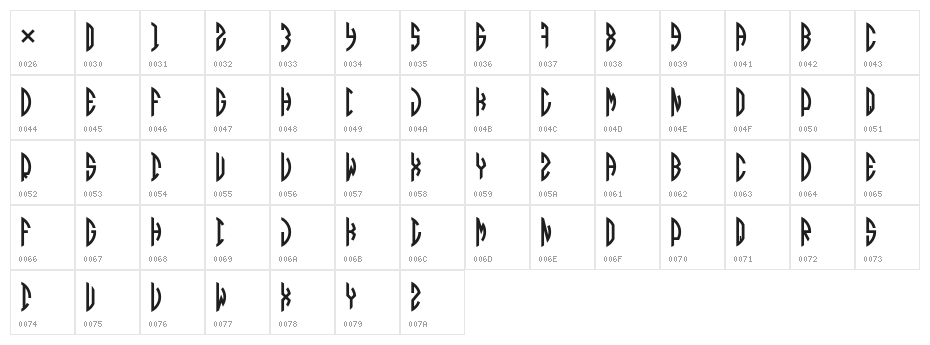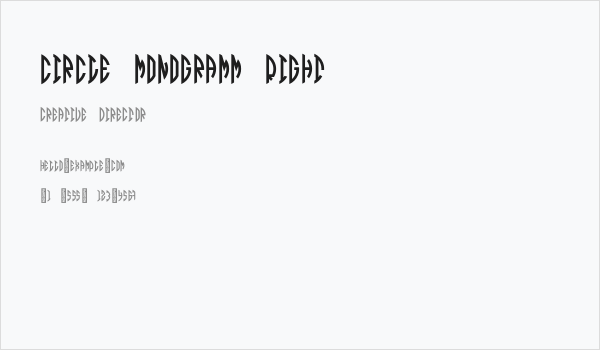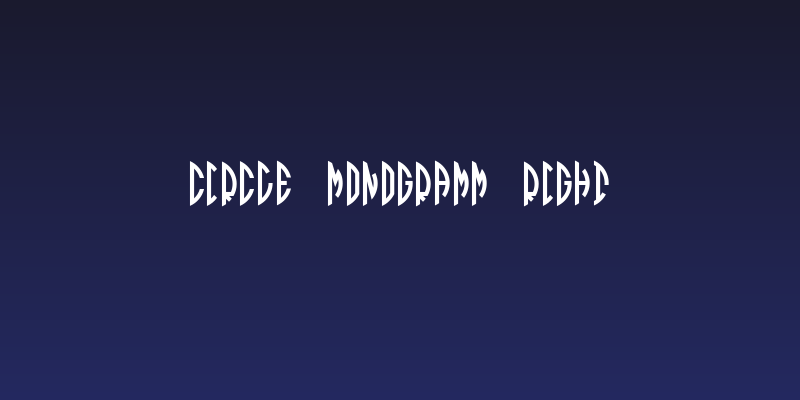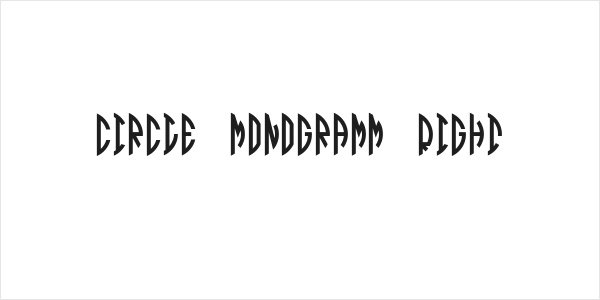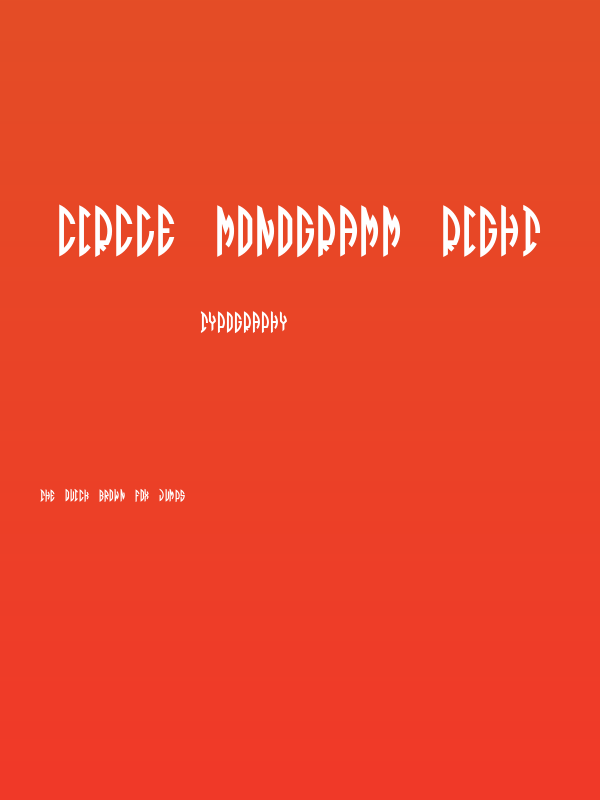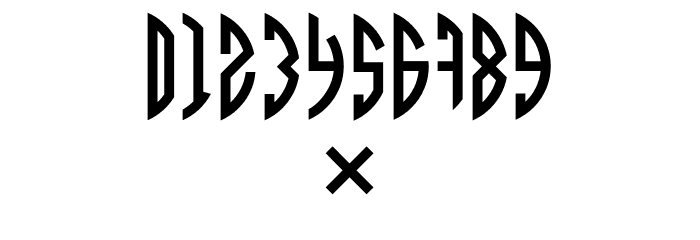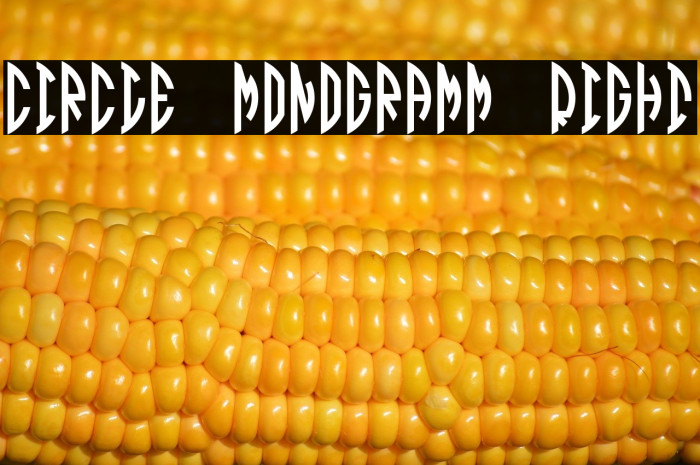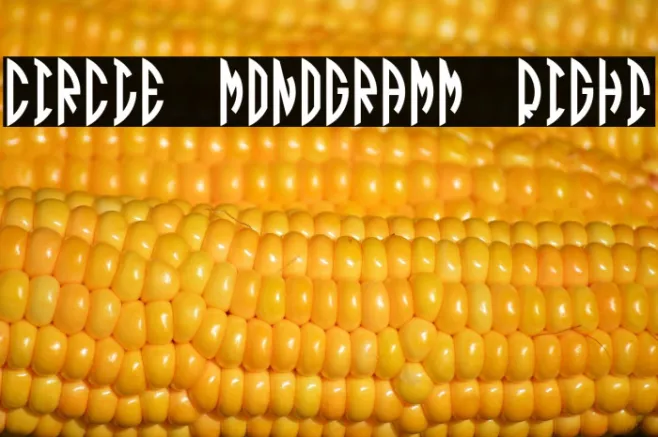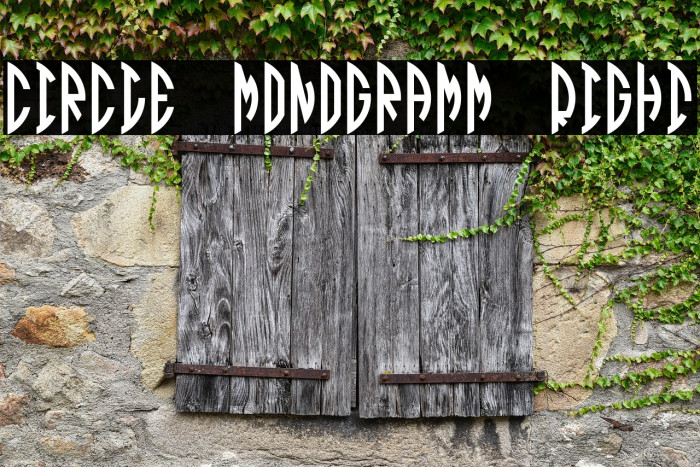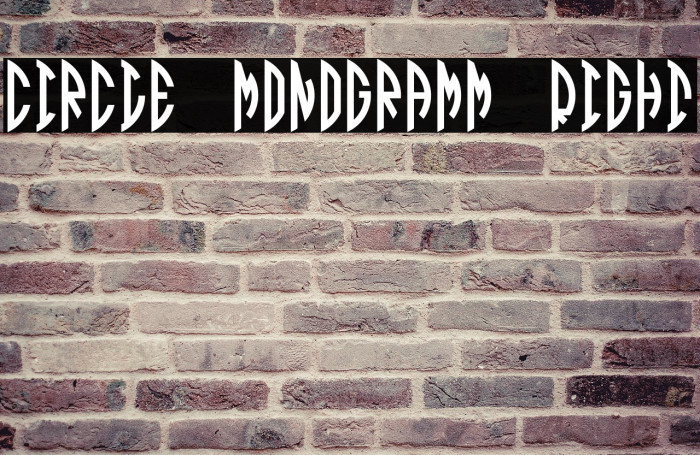
Circle Monogramm Right Font
Circle Monogramm Right Description
This font features a bold and angular design, characterized by sharp edges and a geometric structure. The letters are uniformly styled with a consistent height and width, creating a cohesive and striking appearance. The uppercase letters have a strong presence, while the numerals maintain the same angular aesthetic. The unique style of this font makes it ideal for creating impactful and memorable designs. Its distinct look is reminiscent of modern monogram or logo designs, where clarity and boldness are essential.
| Use Case | Logos, Headlines, Branding |
| Proposed Projects | Ideal for logos, monograms, branding materials, and poster designs where a strong visual impact is desired. |